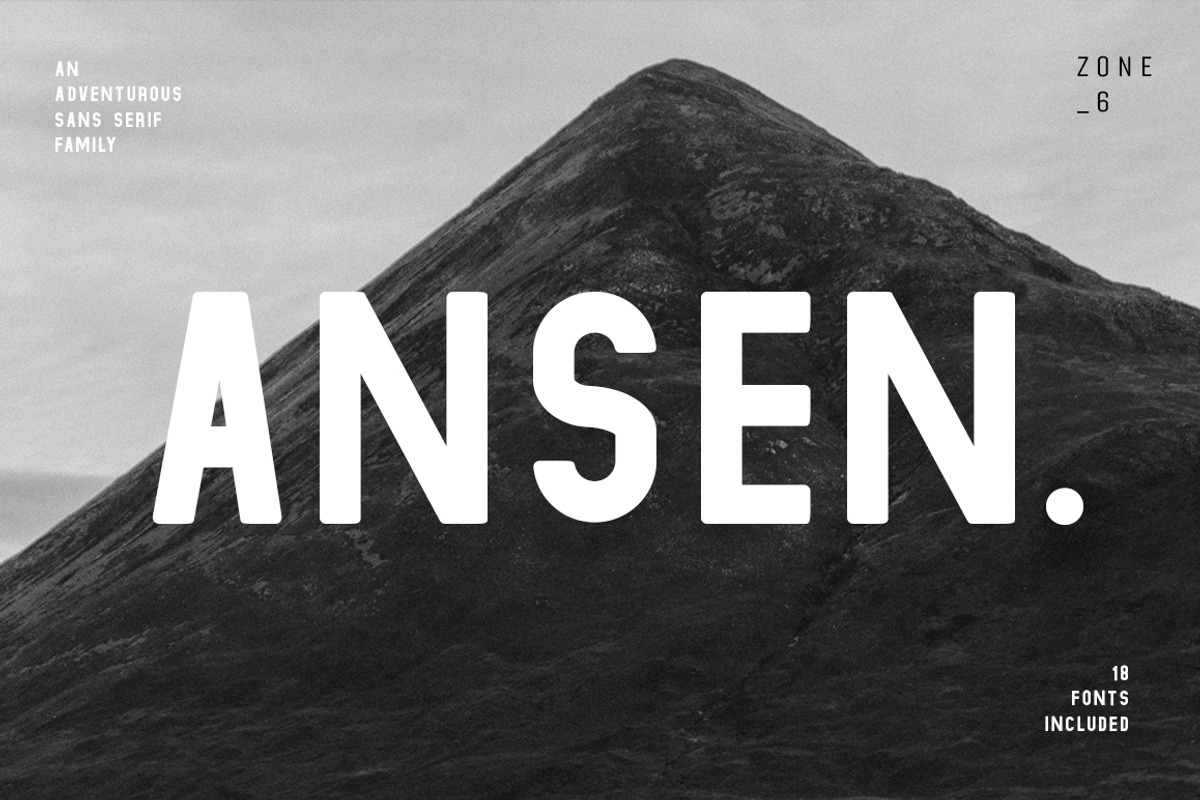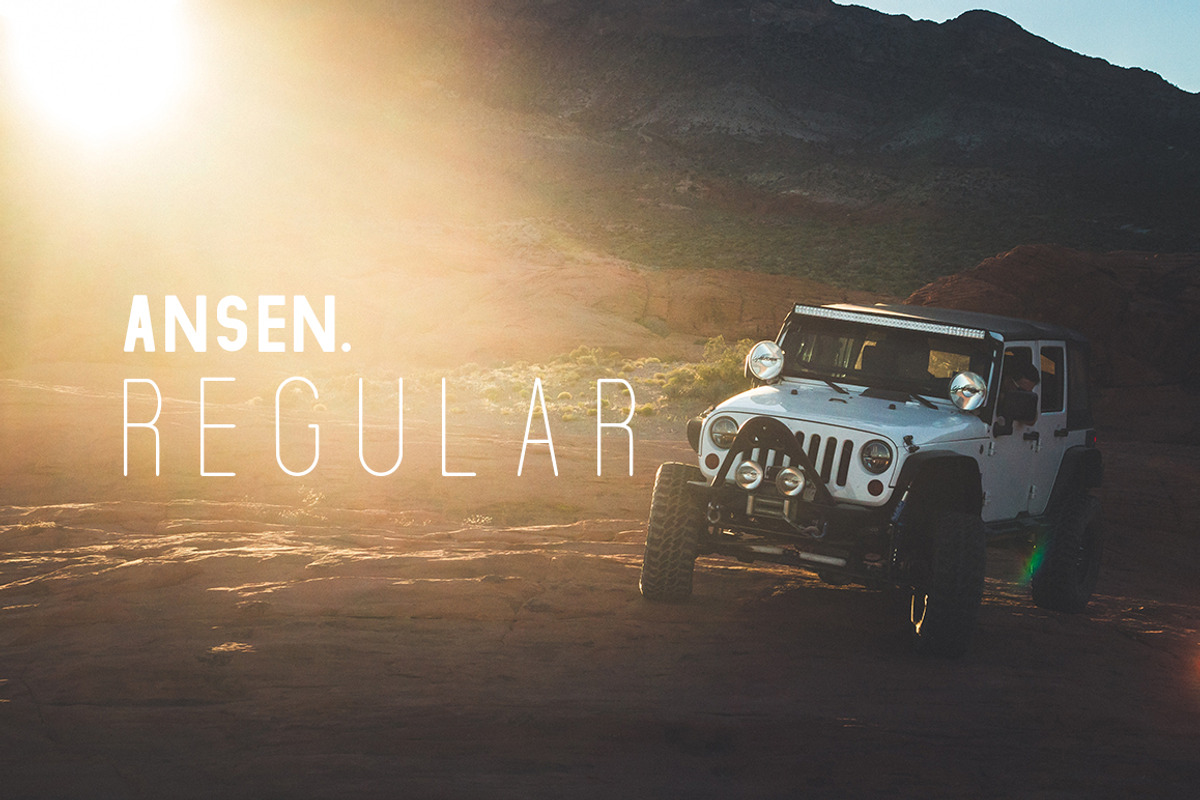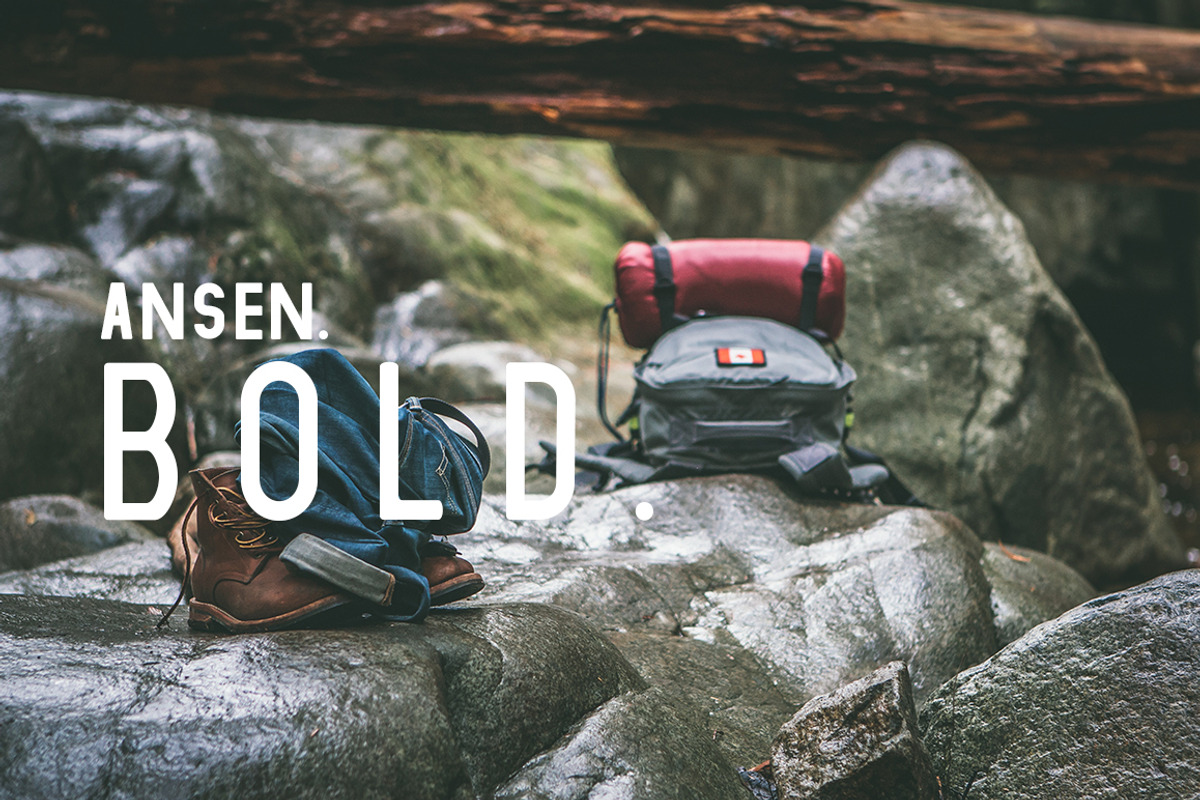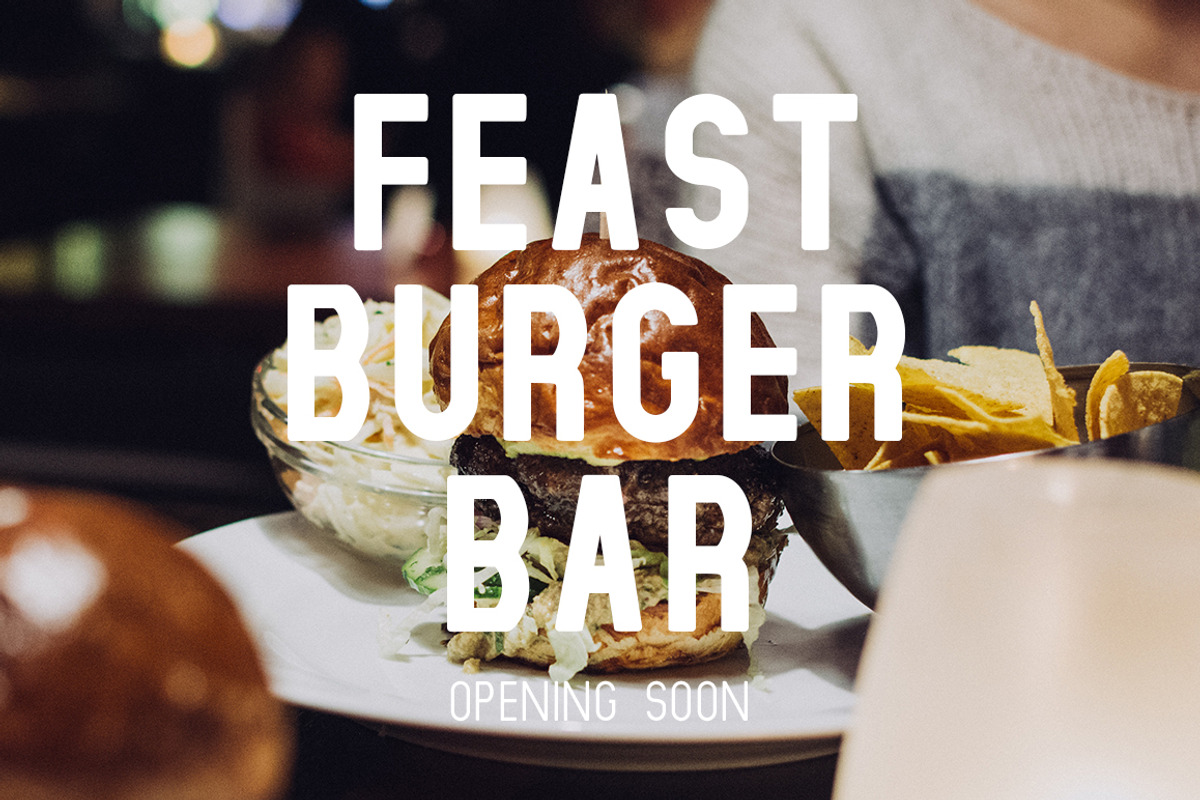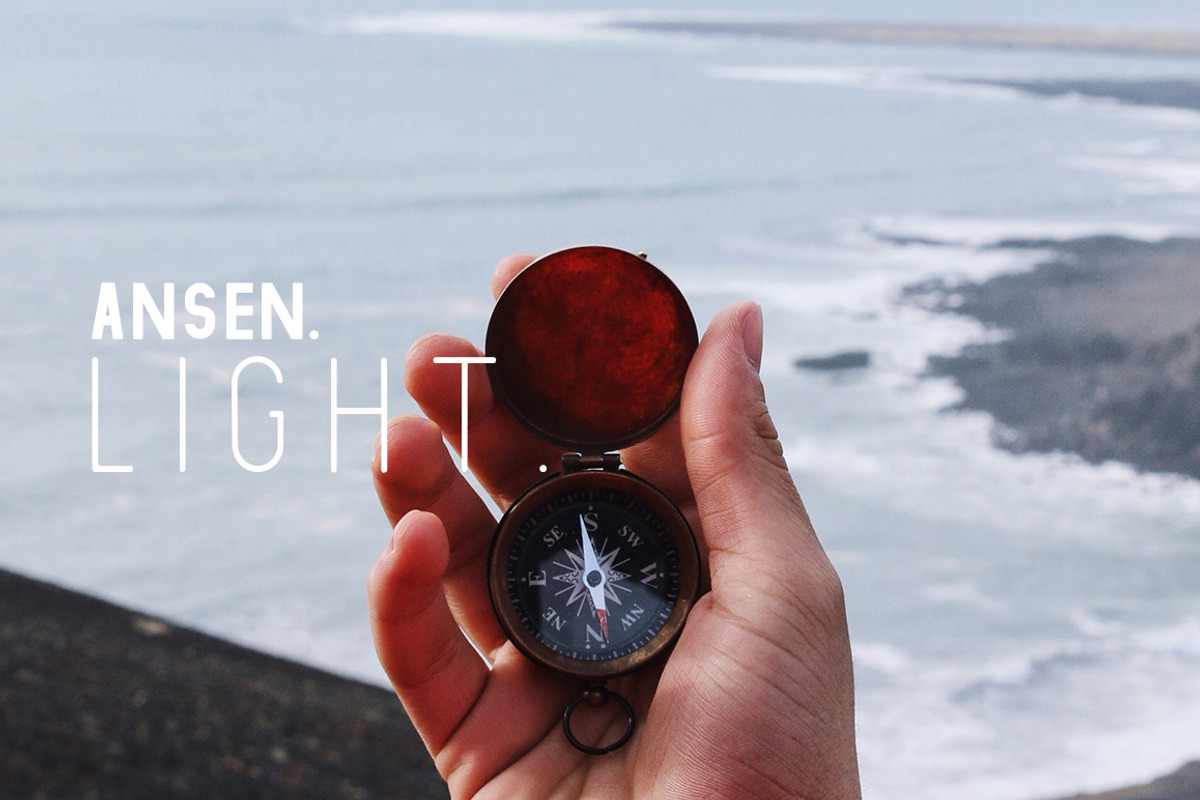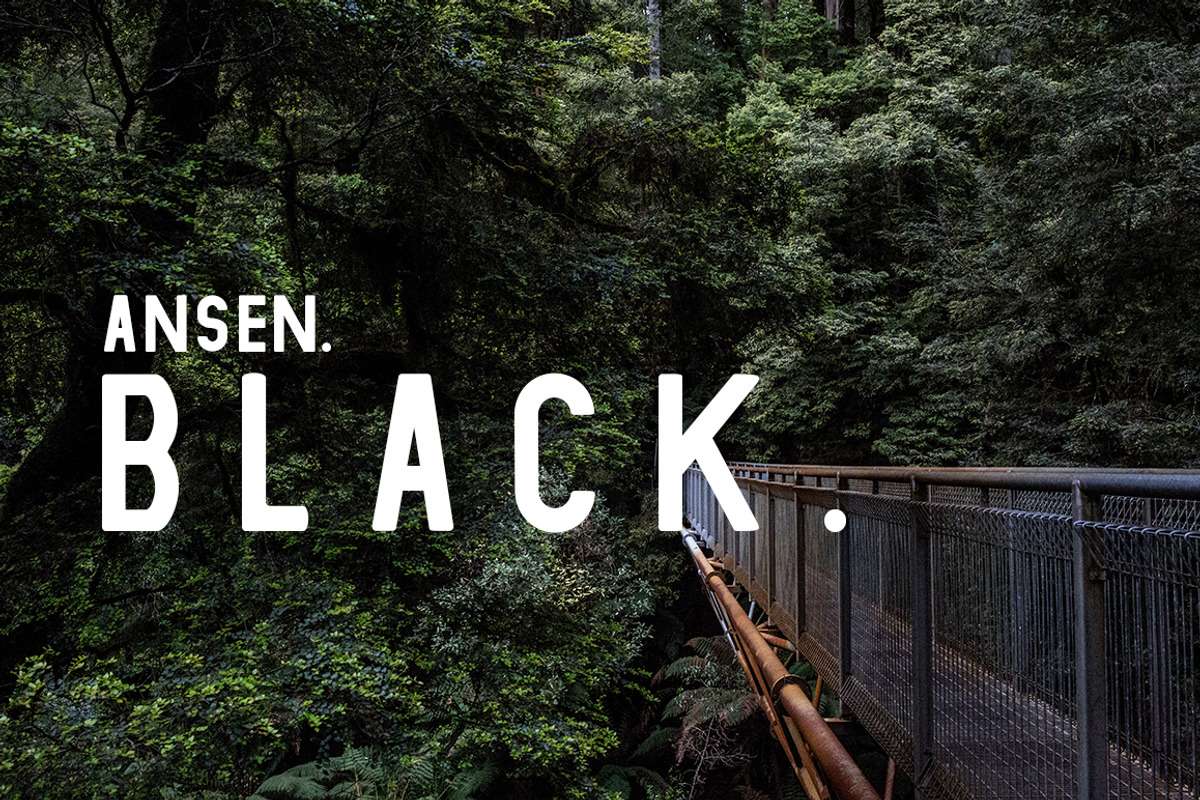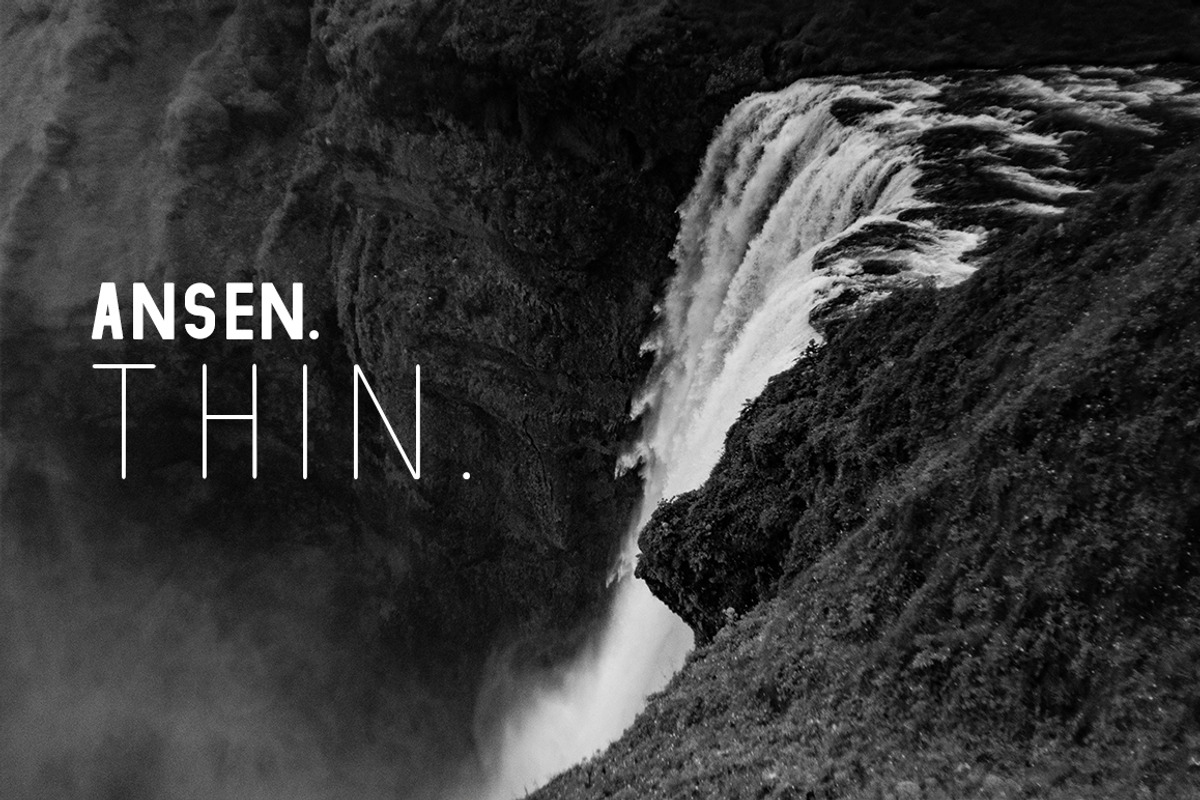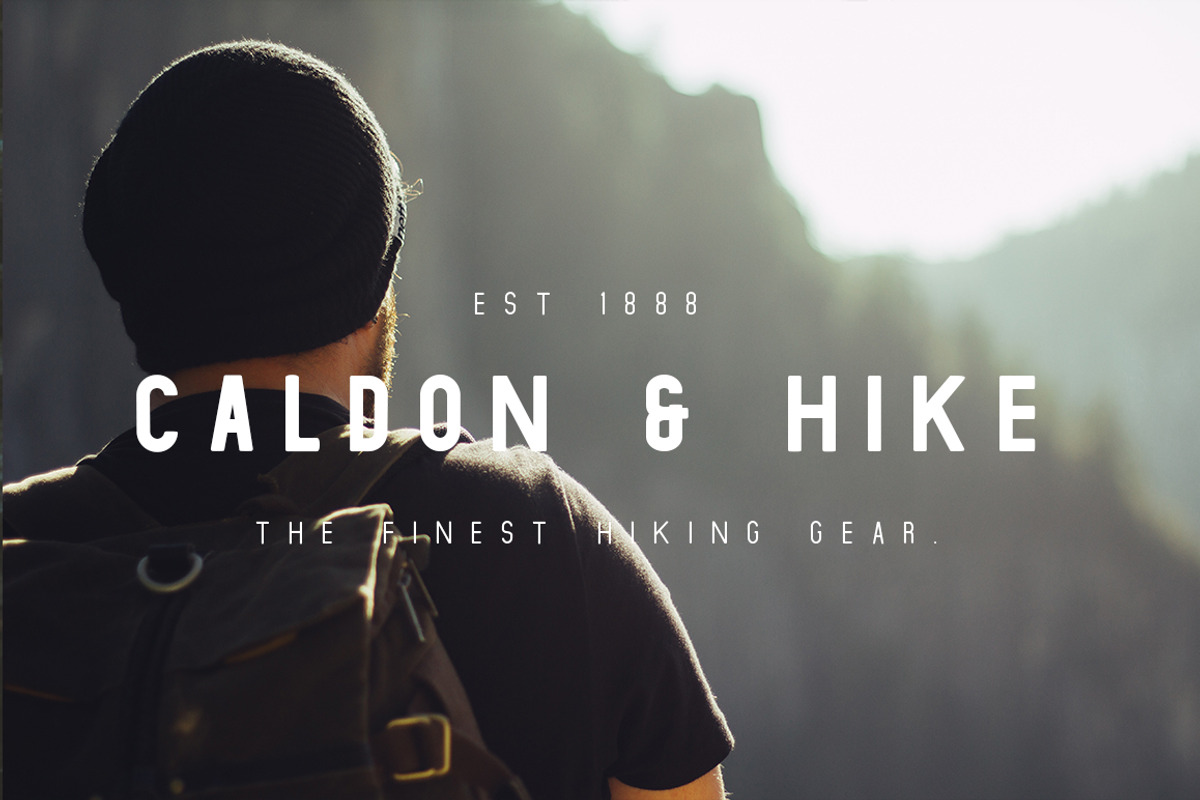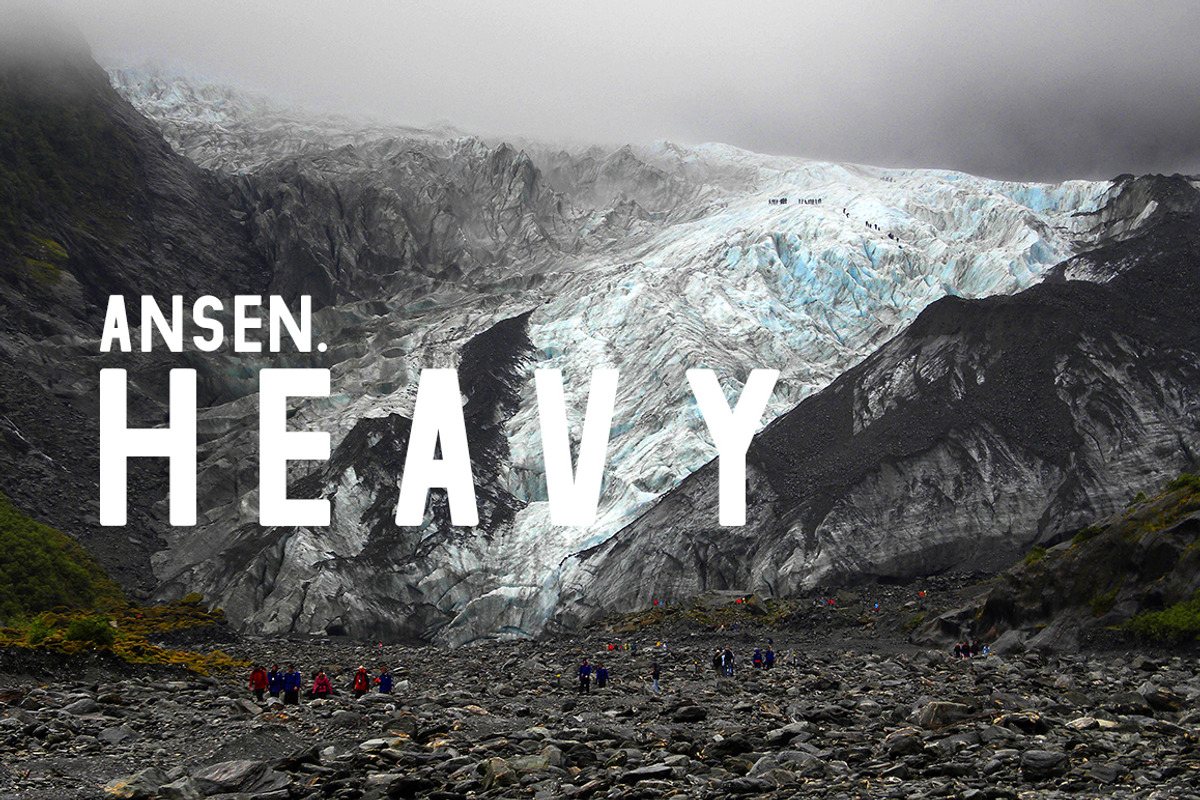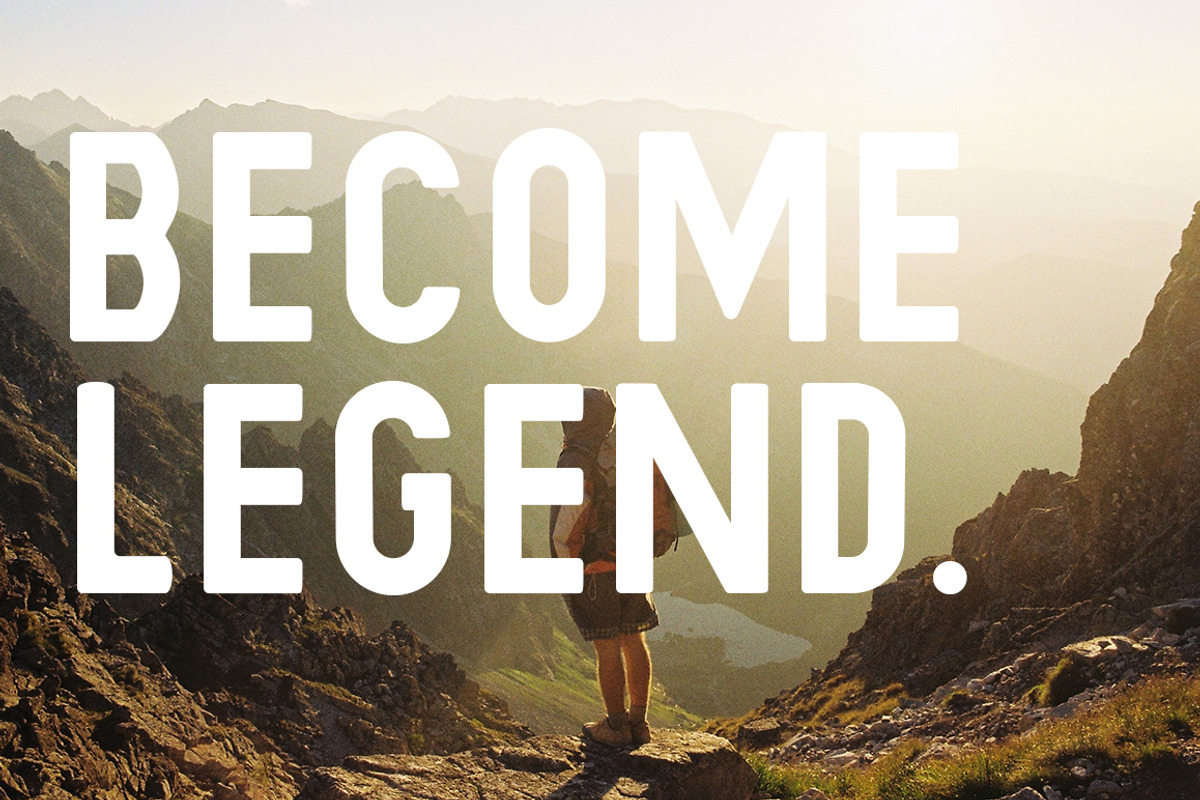
Ansen | An Adventurous Family
Bold. Daring. Courageous.
If you’re looking for a fearless sans serif to create adventurous branding and designs, Ansen is the font family for you.
The Ansen Font Family is a stand out font made for the young, wild and free! It is bold and striking, yet its rounded edges ensure each glyph works seamlessly together for a vintage, outdoors style. Perfect for logotypes, signage & branding for apparel, adventure equipment, photography, travel, food & drink, plus so much more. Its timeless bold style makes it great for just about any project.
Ansen is a huge font family including a grand total of 18 fonts (over 3000 individual glyphs). This includes Ansen Regular, Light, Extra Light, Thin, Semi Bold, Bold, Ultra Bold, Black & Heavy & Italic.
- Italics included
- 18 striking fonts, adding all the versatility and style you need
- Numbers and punctuation included
- Optimized kerning for aesthetic and highly readable texts
If you're looking to impress clients and/or consumers with authentic branding, Ansen is the perfect font family to add to your designer's tool bag.